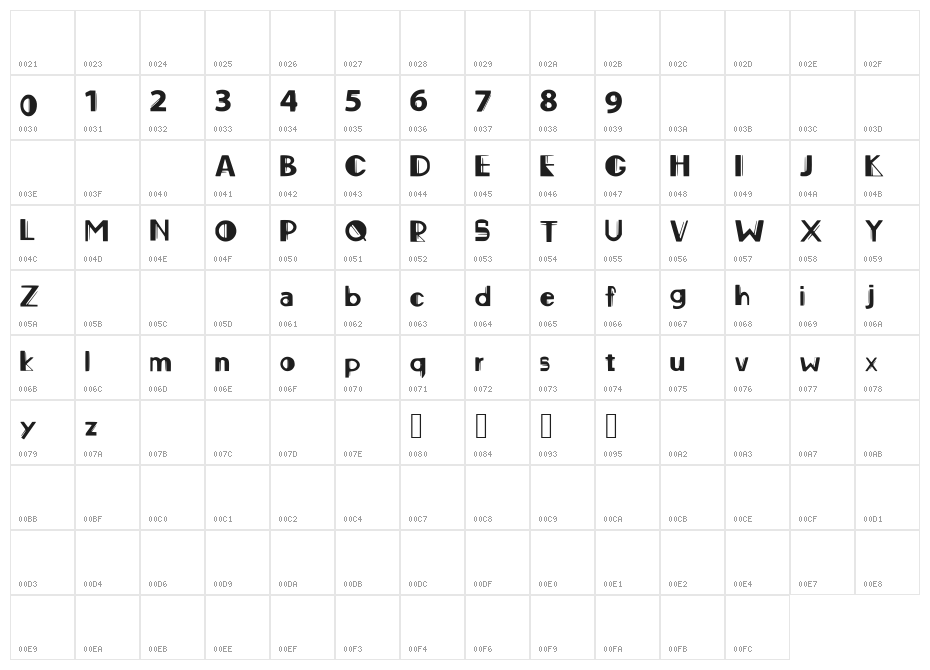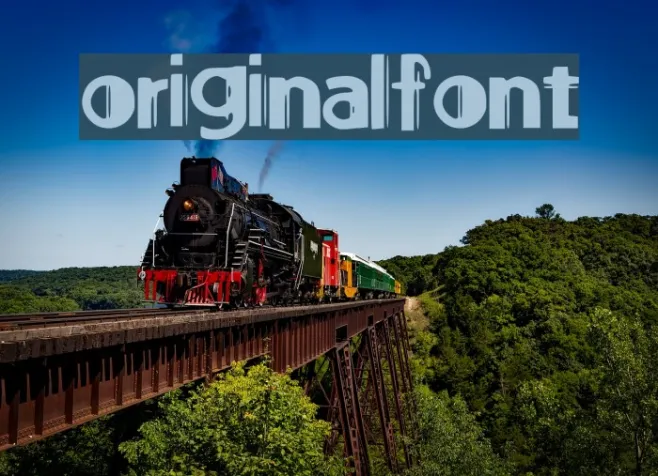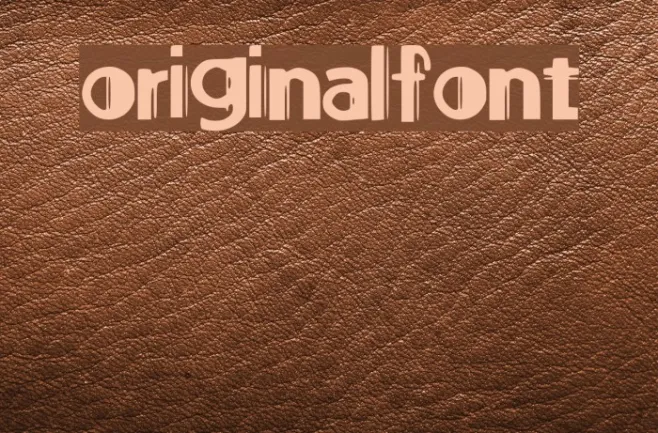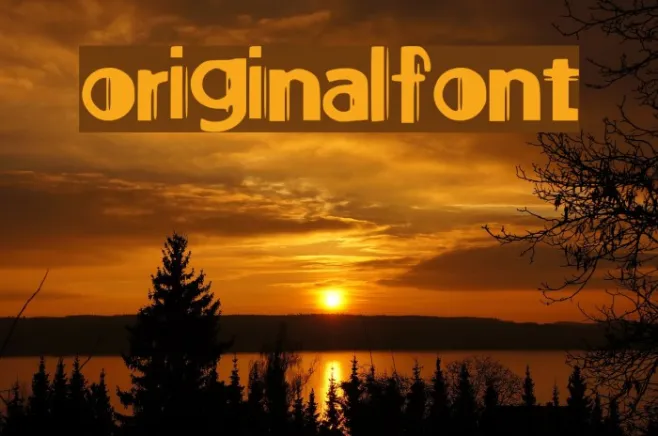
original_font Font
original_font Description
This font features a bold and dynamic design with a modern twist. Each character is crafted with a unique blend of geometric shapes and sharp angles, creating a striking visual impact. The uppercase letters exhibit a strong presence with their thick strokes and distinctive cutouts, while the lowercase letters maintain a cohesive style with rounded edges and consistent weight. The numerals are equally bold, ensuring readability and uniformity across the set. Special characters are designed to complement the overall aesthetic, making this font suitable for a variety of creative applications.
| Proposed Projects | Ideal for branding, poster design, and modern digital graphics. |